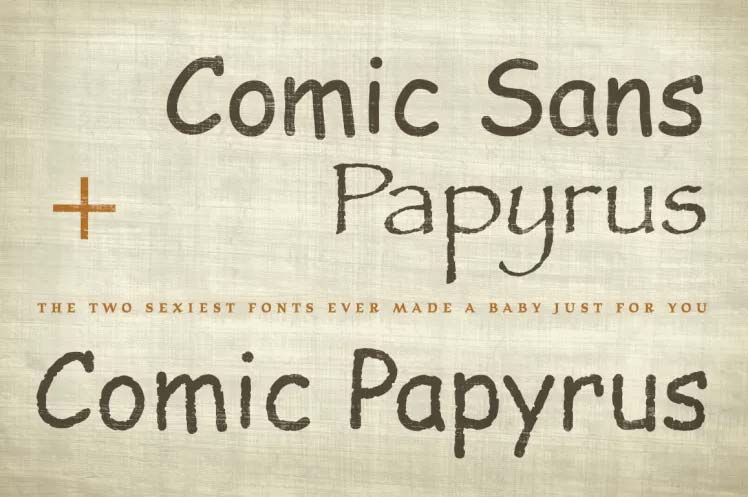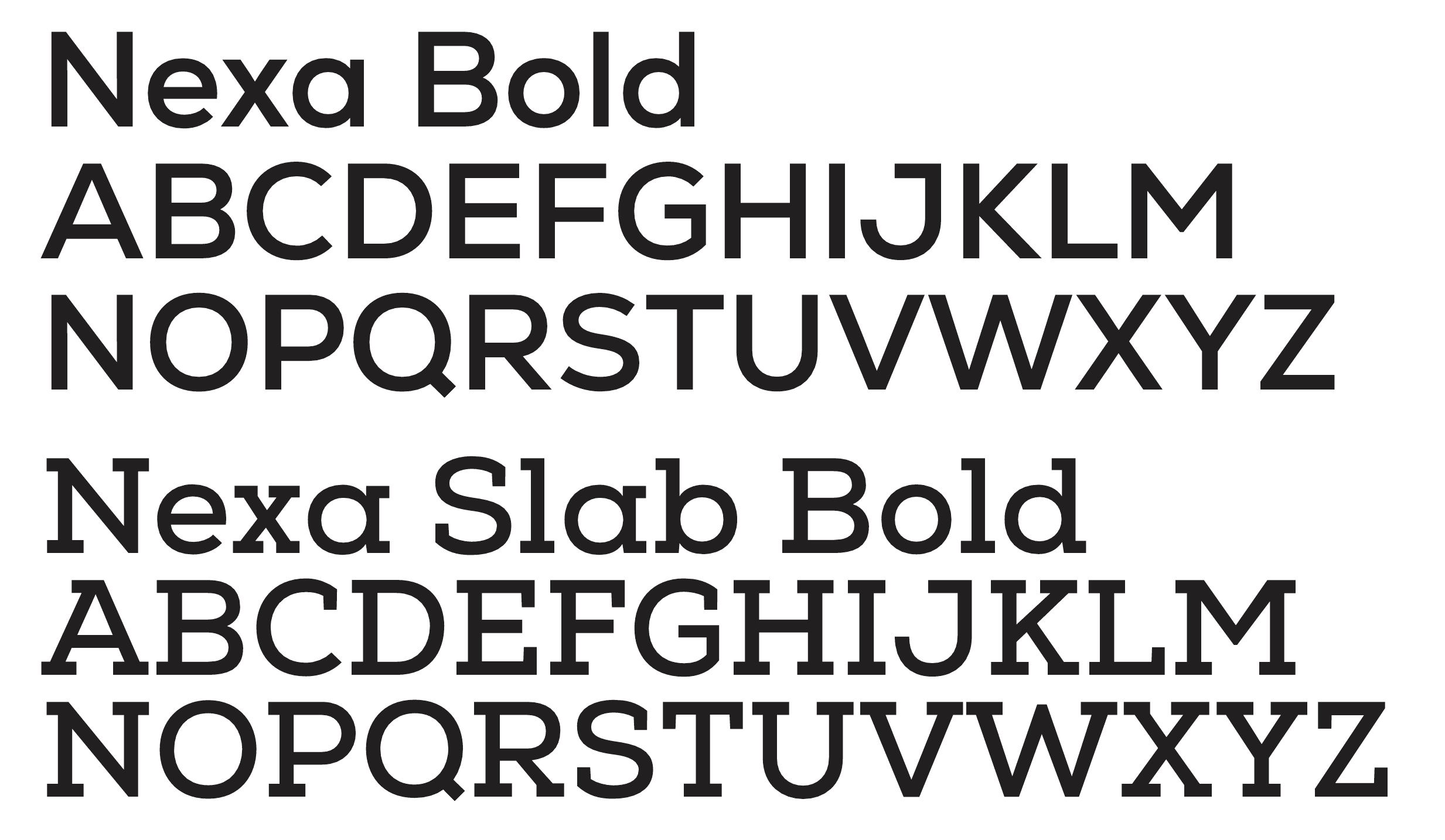
Font of The year
I worked as a designer and in prepress in the early 2000s and almost all typesetting was done in-house, strictly using only Adobe fonts because that's what we were licensed to use. Font usage has totally changed in 20 years, good and bad.
I used to be able to identify almost any font instantly, because there weren't 20 million to choose from. The Google fonts collection alone has 5,213 entries.
That's right Papyrus was cool at the time but now, no one likes to weed out small Papyrus text from vinyl.
Exactly, in the early 80's there used to be "rub-on" transfer text by a company called Letraset. It came in hundreds of different fonts, you would hand space each letter and transfer it to an illustration board. The next step would be to use a high contrast "Photostat" camera and shoot a positive or negative image of it. Back then it would be considered in bad form to use Letraset and not order the authentic type from a foundry. Haha the good o' days
yes i used some of those at OSU earning my graphic design degree. Our class was the first to start using a Mac to do design work. We used Mac II and the older 128k all in one. I still have my burnisher
Arial Sucks.
Apparently fiverr has chosen a font of The year...
It looks like all the fonts they ranked are free/open source fonts.
I typeset Montserrat and Gotham almost daily. 2 very similar fonts that are used frequently. If we could get fewer people to use Arial that would be great.
I'm seeing a greater amount of customer provided art files set in Montserrat. It's a decent typeface; it even has a true small caps character set. The variable version of Montserrat was buggy at first, but seems to have been updated (now it works properly in CorelDRAW). I'd like Montserrat more if it had a variety of widths.
When I'm considering buy a new type package I'm more likely to buy if the font(s) have variable width axes along with variable weight.
I'll still use Gotham once in awhile, but I've really grown sick of it due to it being over-used in so many places. I dislike Arial and really hate seeing it when it is distorted. But when people stupidly squeeze and stretch Gotham out of its normal proportions it looks even worse. Gotham should not be distorted (especially when the type family has four native widths available).
Yeah lots of fun trying to identify some fonts when they are so similar. Here is a grouping that i always confuse one from another. Bonus points if you can identify all of them
My guesses:
1. Montserrat
2. Gotham
3. ? -Nexa is similar, but Nexa's "S" isn't right.
4. Akzidenz Grotesk
5. Neuzeit Grotesk
6. Avenir/Avenir Next
I used to be able to identify many, many fonts - but not these days! I can identify a good number of them but so many slight variations and so many decorative ones, it's tough!
A really bad scenario is when a customer has a channel letter sign made by another sign company and needs broken letter faces replaced. The letters might look like they were set in Futura, but which type foundry version? None of the versions of Futura sold by Monotype, Linotype, Bitstream, Paratype, URW, Neufville Digital, TypeShop, etc are perfectly identical with each other. Set a string of text in any of those versions and then overlap them. None of them line up perfectly with the other. The same situation is true with Helvetica and its various "Helveti-clones" (like Swiss 721 BT or Nimbus Sans). I can spot the difference between the 1957 "plain" Helvetica, its 1983 "neue" cut and the more recent "now" version. It tougher to spot the difference between Helvetica Neue and Nimbus Sans.
And then there is the issue of people distorting the fonts out of their normal proportions. Variable Fonts add a new wrinkle to the mix. More and more, if we don't have the original art files we're going to have to make patterns from channel letter returns and craft the new channel letter faces from that.
I have a Sheriff's Department that does similar things. Before I even lay it out, I already know that it will either be to small, or condense it until it's unreadable. I show options on the proof, show notes of sizes, etc. and have the Sheriff sign the proof with the option picked out. It's a headache at times. And yes, Eurostile, in all its incarnations, is overused and is like a red-haired stepchild, a giant p.i.t.a.